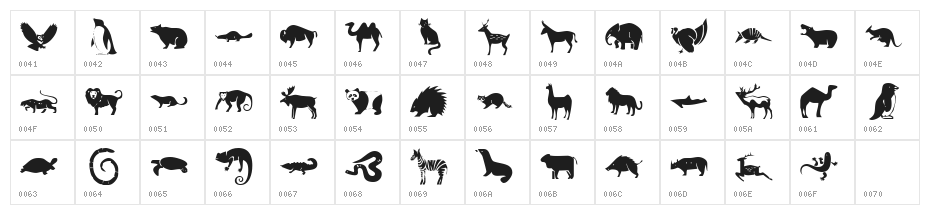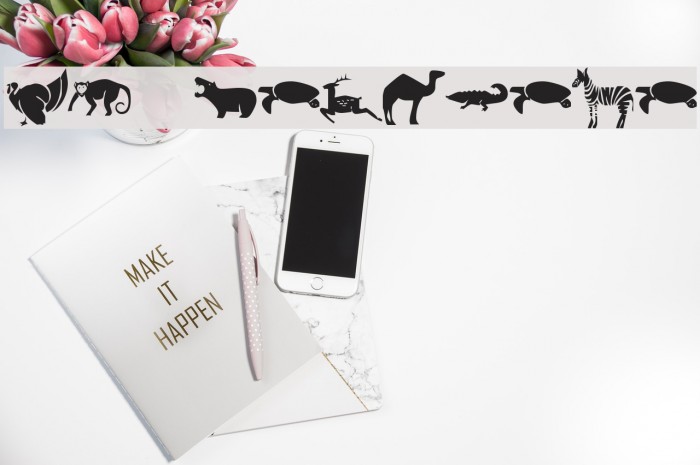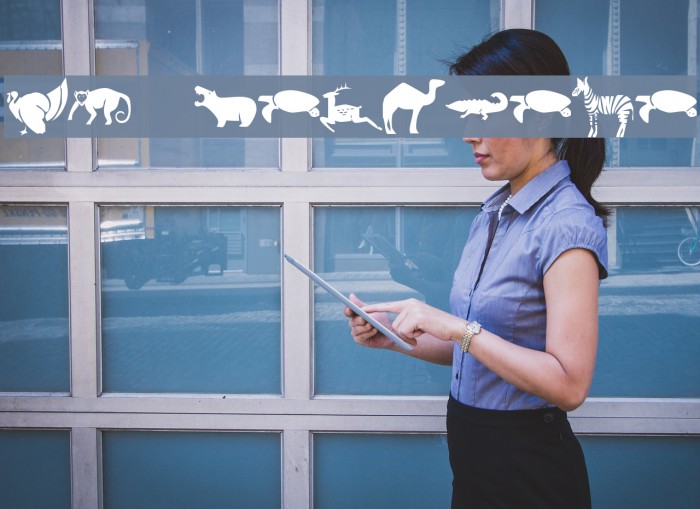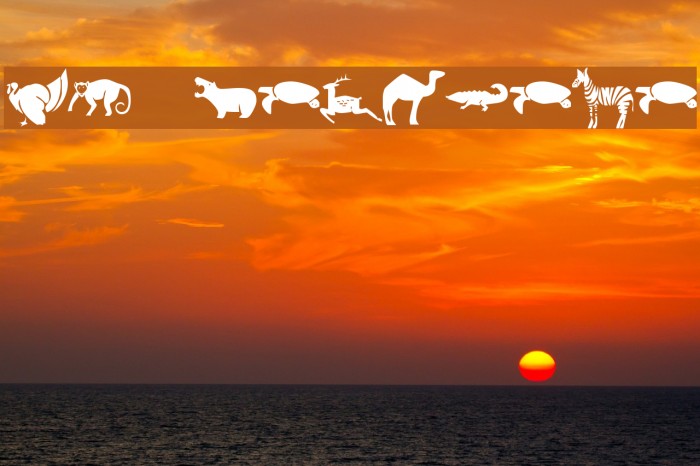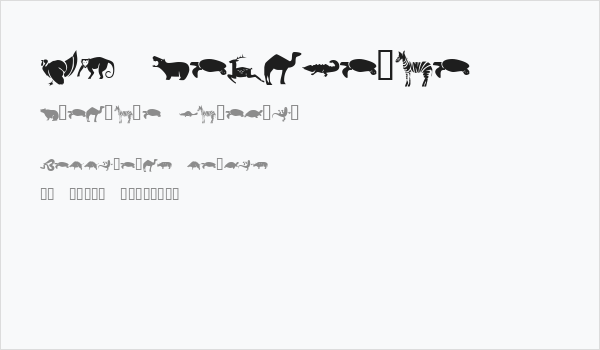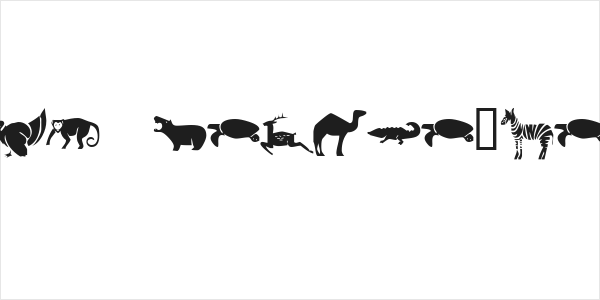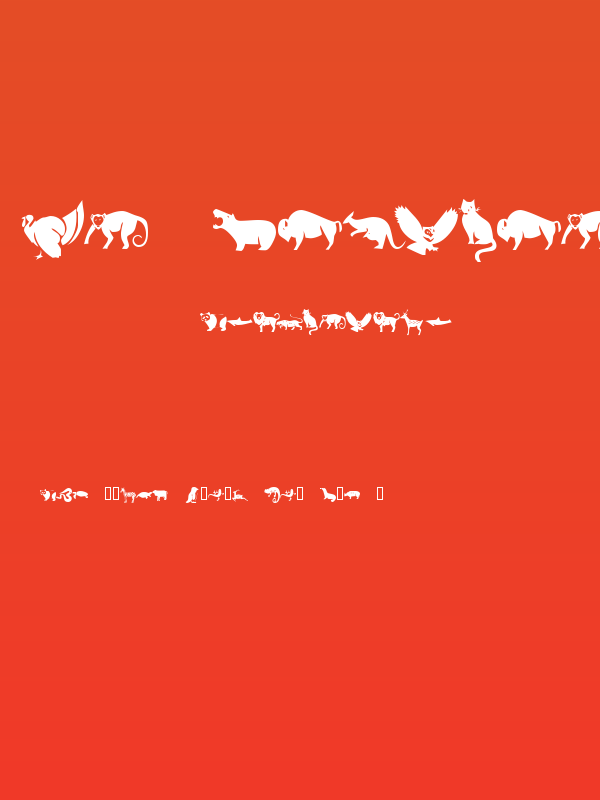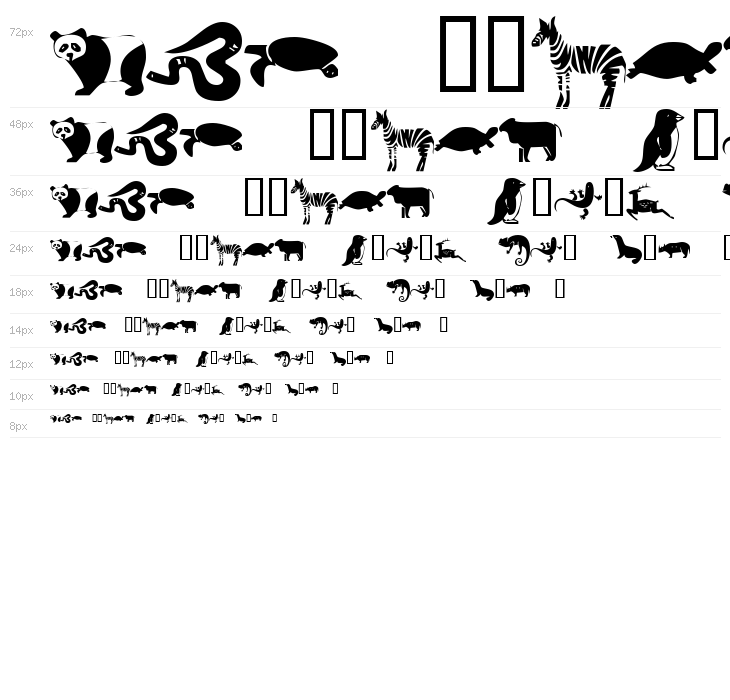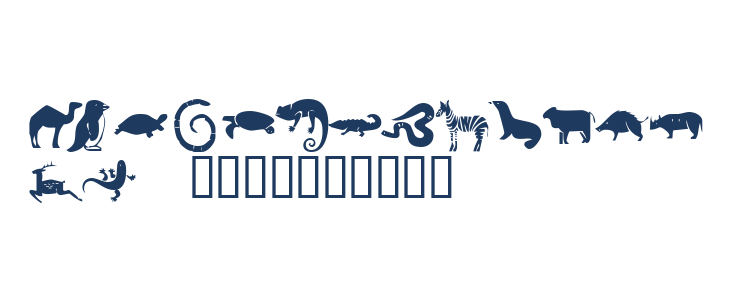
KR Menagerie Font
KR Menagerie Description
A decorative dingbat font featuring a wide variety of animal silhouettes, each glyph representing a different animal in a bold, solid black style. The animals are easily recognizable and rendered in a playful, cartoon-like manner, with consistent stroke thickness and no internal detail.
| Overall Style | Decorative, Playful |
| Use Case | Decorative elements, Icons, Themed graphics |
| Proposed Projects | ChildrenΓ’β¬β’s books, educational materials, animal-themed party invitations, posters, scrapbooking, decorative borders. |